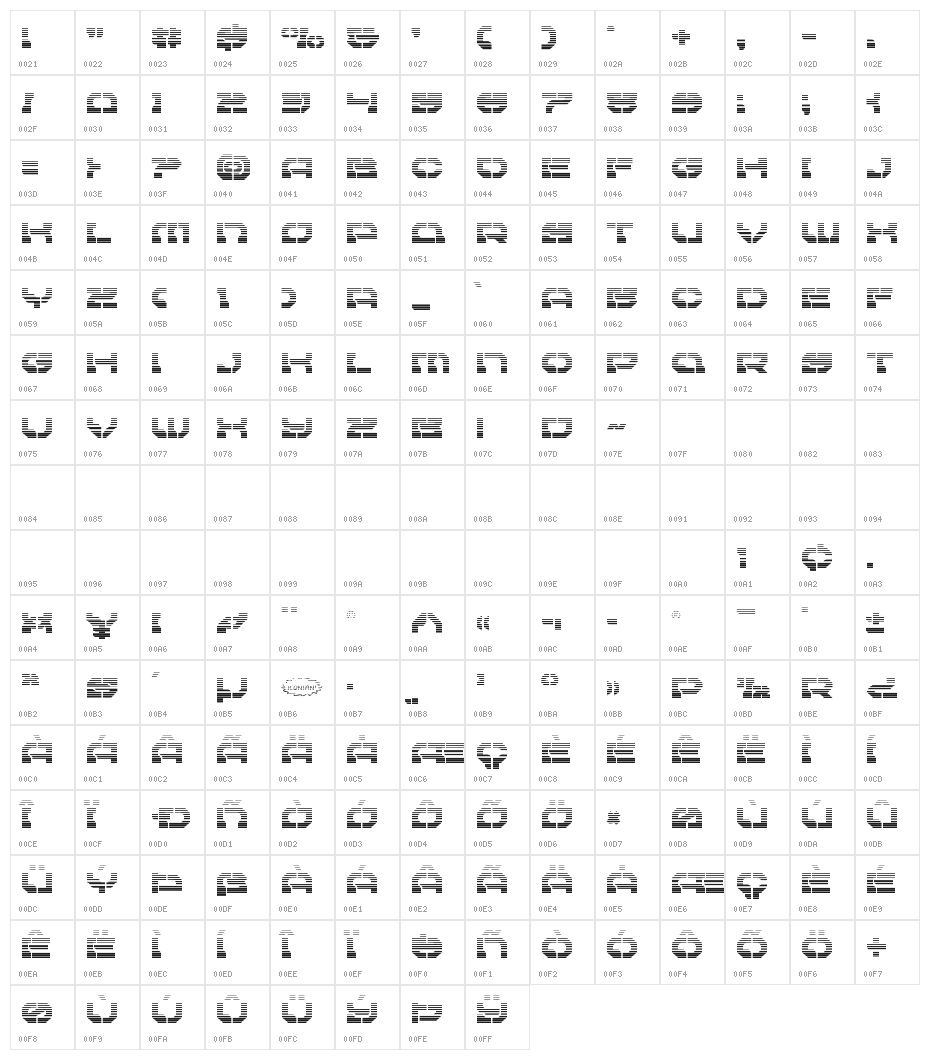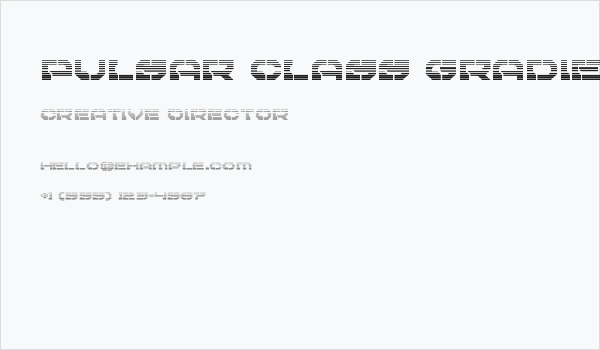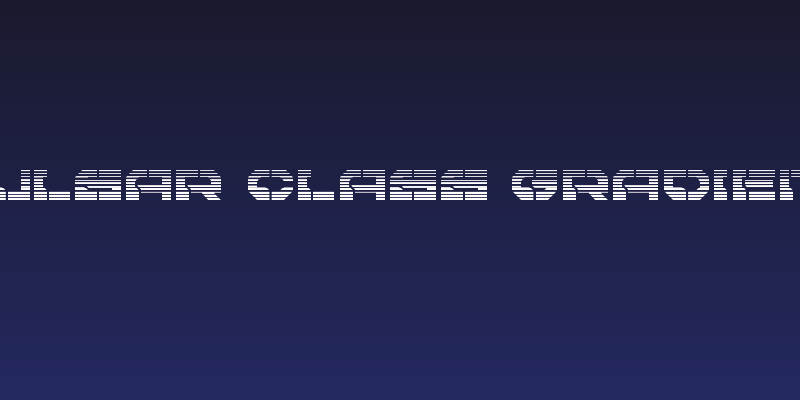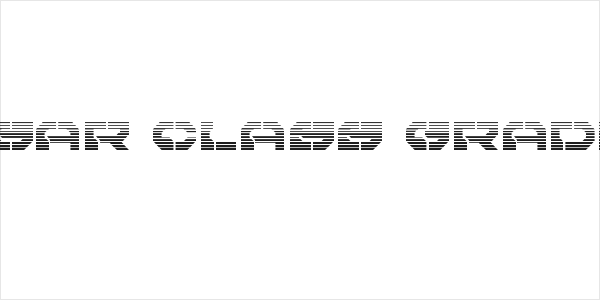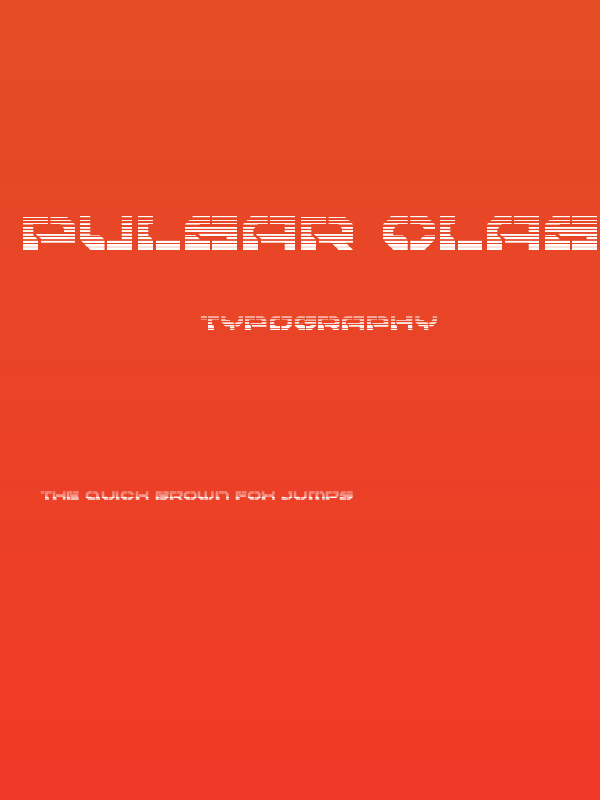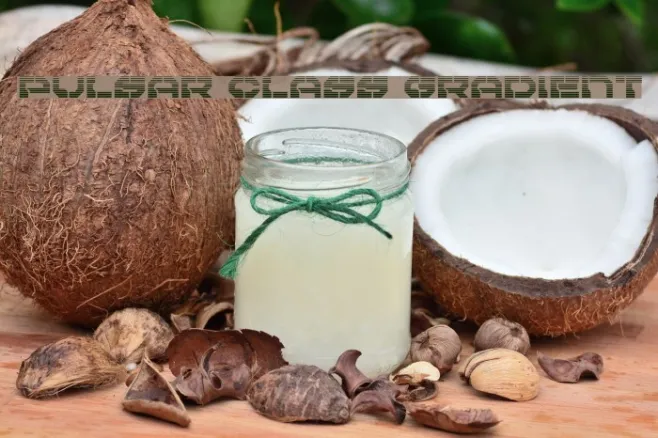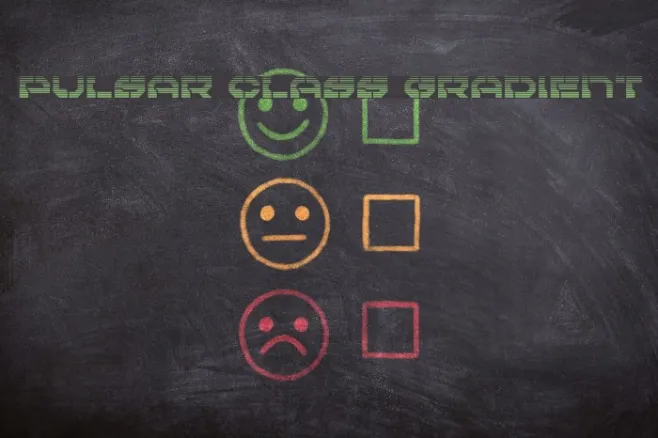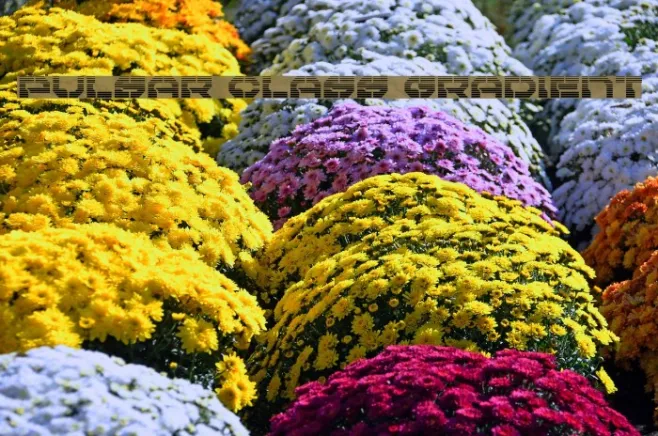
Pulsar Class Gradient Font
Pulsar Class Gradient Description
This font features a futuristic and digital aesthetic, characterized by its segmented, horizontal line design. Each character is constructed with a series of parallel lines, creating a sense of movement and modernity. The geometric structure is consistent across all letters and numbers, providing a cohesive and uniform appearance. The font's unique style is reminiscent of digital displays or sci-fi themes, making it stand out in any design project. Its bold and striking appearance is ideal for capturing attention and conveying a sense of innovation.
| Proposed Projects | Ideal for technology branding, sci-fi movie posters, video game titles, and digital interfaces. |